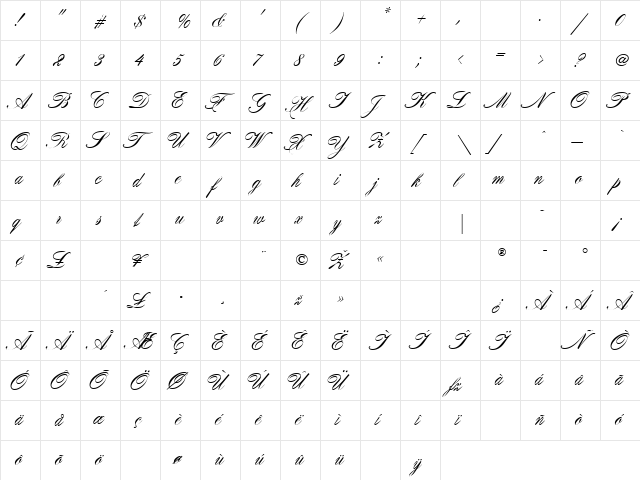
Certificate Script Regular
Design Context for Certificate Script Typeface
Certificate Script brings a calligraphic fluidity to the page — its connecting strokes and expressive curves give it an unmistakably human quality.
Font Pairing: Combine Certificate Script with a simple geometric sans for maximum contrast — the tension between flowing curves and clean structure is a classic typographic pairing.
Pro Tip: Use Certificate Script for short runs of text — names, titles, or taglines. Extended body copy in script faces tires the eye quickly.